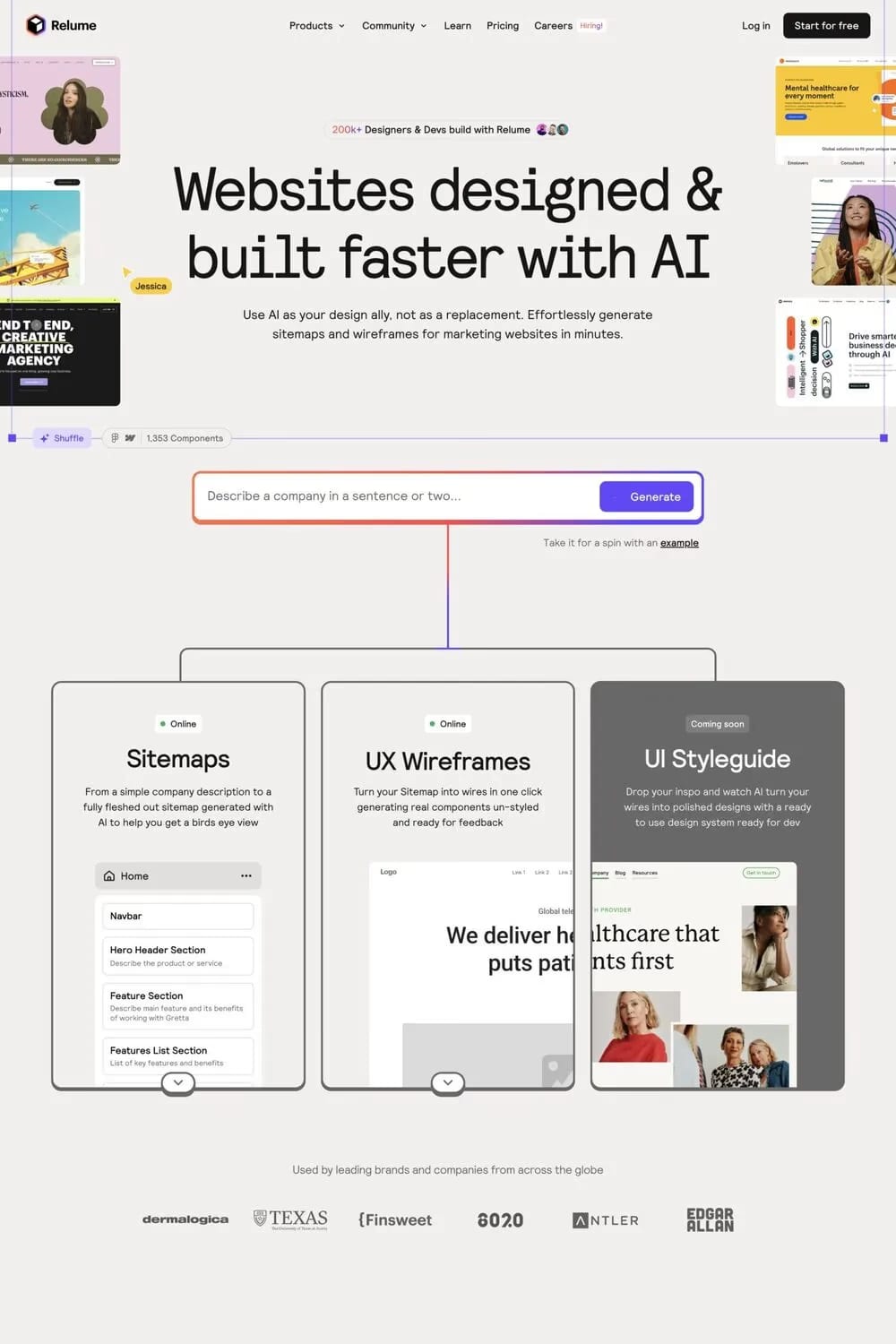
Relative is a sans-serif typeface from Colophon.
Relative is a type family of two halves — a proportional set of weights from Book to Black (including Italics), and fixed-width pitched versions that are abridged by a ‘faux’ monospace cut. This ‘Faux’ cut takes the restrictions of a monospace typeface, and subverts them into aesthetic traits (notably, see the ‘i’ and ‘l’), allowing the typeface to be spaced proportionally and retain some of the sensibility of its fixed-width cousins.